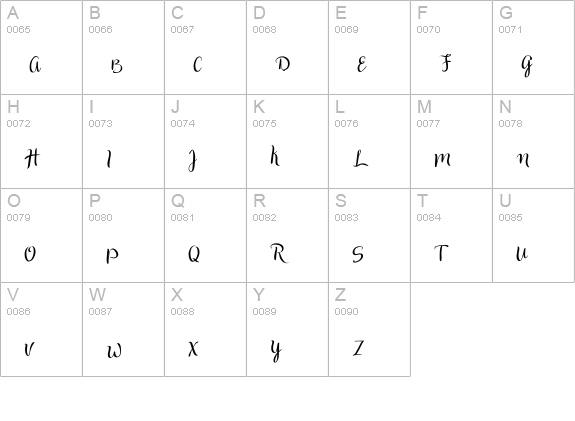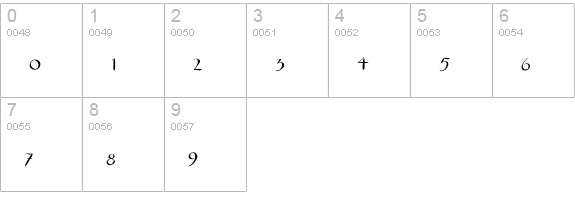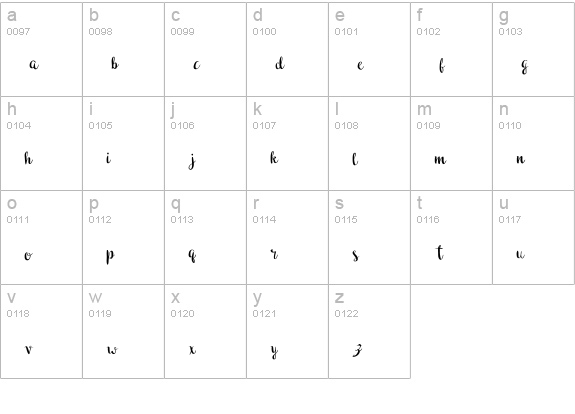
Druchilla Script font is a beautifully crafted typeface that exudes elegance and sophistication. Its flowing curves and delicate strokes give your designs a touch of class and charm. Whether you're working on wedding invitations, branding projects, or any other creative endeavor, Druchilla Script font will surely elevate your work to the next level.